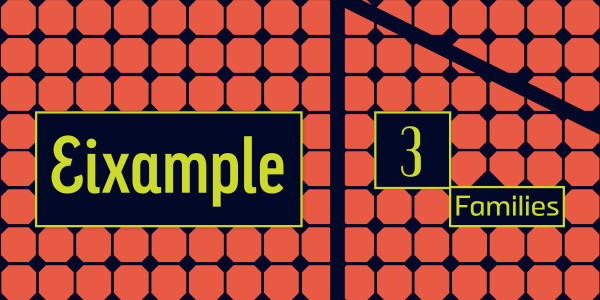
Eixample Font
Eixample Font by Sabina Chipară and José Manuel Urós consists of three subfamilies—Dip, Glaces, and Villa—inspired by the modernist signage found in Barcelona’s Eixample neighborhood. The name of each family is related to the location of the sign or to some specific element in its design.
Dip’s capitals are built with contained decoration to achieve maximum compatibility between letters. The script capitals are the default uppercase, but an alternate slab style is included as OpenType glyphs. Narrow and Inline styles round out this versatile subfamily. Glaces’s three styles slide between monolinear and high contrast and each offers a choice between conventional closed apertures for characters like C, G, and S, and more playful open apertures. These features, as well as small caps, can be accessed using OpenType. The Villa family contains sturdy, industrial letters, free from ornament, and extrapolated from the personality of a single letter “A” from the Villarroel Pharmacy sign.
The Eixample families clearly show their origins as display fonts inspired by modernist signage, but they have been engineered for great results at smaller sizes as well. Each of them would be an excellent choice for any number of branding projects, from a hip new bar to a playful children’s clothing brand.